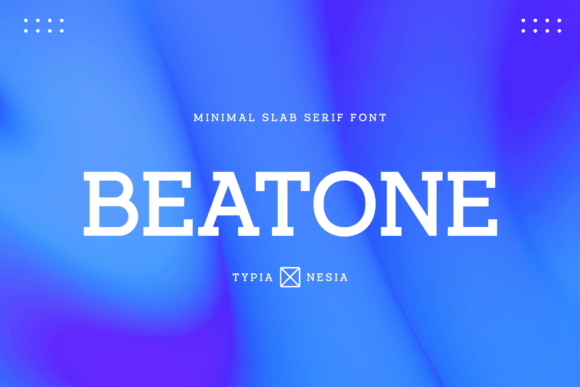
Introducing Beatone Font: The Ultimate Modern Clean Minimalist for Your Projects
In the world of design, fonts play a crucial role in conveying the message and aesthetic of a project. With the numerous font options available, finding the perfect one that suits your needs can be overwhelming. However, if you’re looking for a modern, clean, and minimalist font that can elevate your designs, look no further than Beatone Font.
What is Beatone Font?
Beatone Font is a modern clean minimalist font designed to cater to a wide range of projects. Its sleek and simple design makes it an ideal choice for designers who want to create a lasting impression. Whether you’re working on a logo branding, editorial design, stationery design, or any other project, Beatone Font is the perfect companion.
Perfect for Various Projects
Beatone Font is a versatile font that can be used for various projects, including:
- Logo branding: Create a lasting impression with a clean and modern logo that reflects your brand’s identity.
- Editorial design: Elevate your publications with a font that exudes professionalism and sophistication.
- Stationery design: Add a touch of elegance to your stationery with Beatone Font.
- Esports design: Give your esports designs a modern and sleek look that appeals to gamers.
- Game industry: Create engaging and immersive experiences with a font that complements your game’s aesthetic.
- Sports racing: Add a touch of speed and energy to your sports racing designs with Beatone Font.
- Techno/gadget brand: Perfect for techno and gadget brands that require a modern and clean look.
- Digital music poster: Create eye-catching posters that showcase your music event or album.
- Apps startup design: Give your app a professional and modern look with Beatone Font.
- Modern advertising design: Elevate your ads with a font that grabs attention.
- Art quote: Add a touch of sophistication to your art quotes with Beatone Font.
- Home decor: Create beautiful home decor designs that reflect your style.
- Book/cover title: Give your book a professional and eye-catching title with Beatone Font.
- Special events: Make your special events, such as weddings and conferences, more memorable with a custom font.
Key Features of Beatone Font
Beatone Font boasts several key features that make it an ideal choice for designers:
- Modern and clean design: A sleek and simple font that complements any design.
- Minimalist aesthetic: Perfect for designers who prefer a clean and uncluttered look.
- Versatile: Suitable for a wide range of projects, from logos to editorial designs.
- Professional: Gives your designs a professional and sophisticated look.
- Elegant: Adds a touch of elegance to any design.
Tips for Using Beatone Font
To get the most out of Beatone Font, here are some tips:
- Pair with bold colors: Beatone Font looks great with bold and bright colors.
- Experiment with sizes: Try different font sizes to create visual hierarchy.
- Use for headlines and body text: Beatone Font is suitable for both headlines and body text.
- Add a pop of contrast: Use a contrasting font to create visual interest.
Why Choose Beatone Font?
With so many fonts available, why choose Beatone Font? Here are some reasons:
- Unique design: Beatone Font has a unique and distinctive design that sets it apart.
- High-quality: A high-quality font that is perfect for professional designs.
- Easy to read: Beatone Font is easy to read, making it perfect for body text.
- Customizable: You can customize Beatone Font to suit your design needs.
In conclusion, Beatone Font is a modern clean minimalist font that is perfect for a wide range of projects. Its sleek and simple design makes it an ideal choice for designers who want to create a lasting impression. With its versatility, key features, and ease of use, Beatone Font is a great addition to any design project.